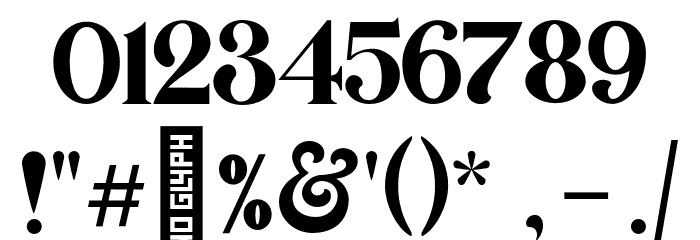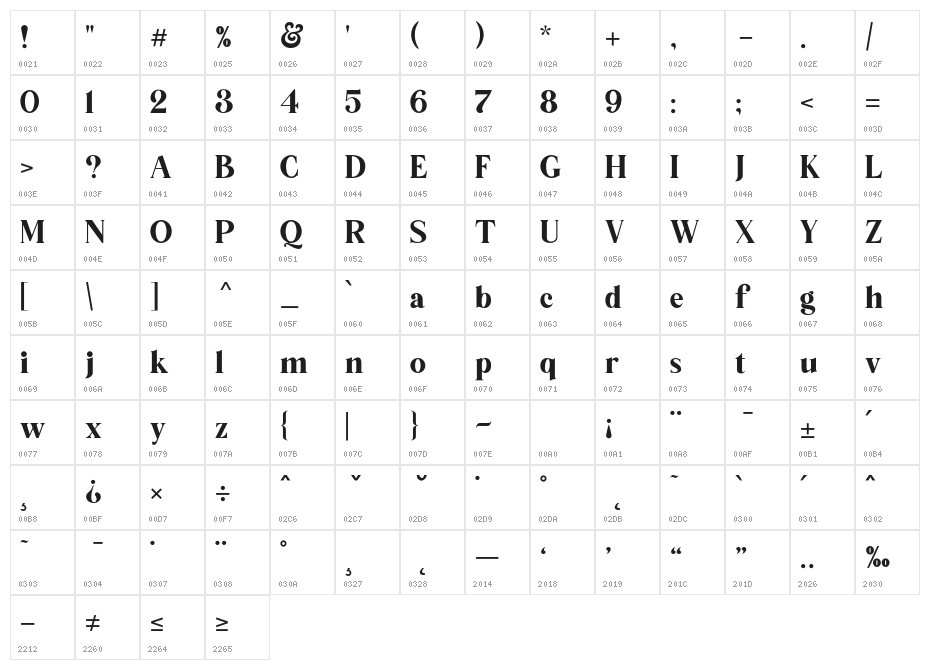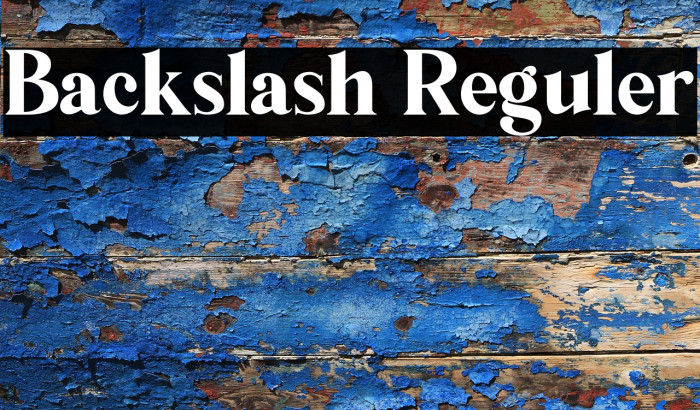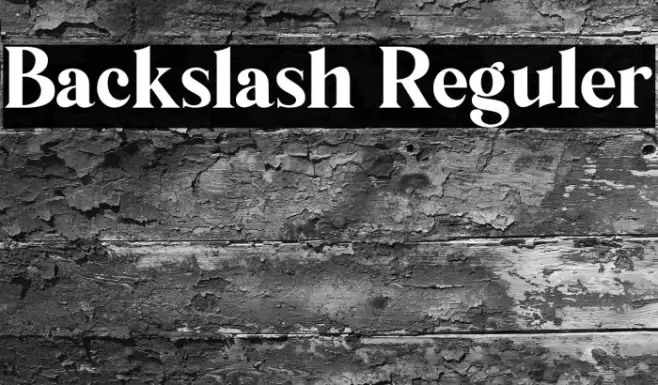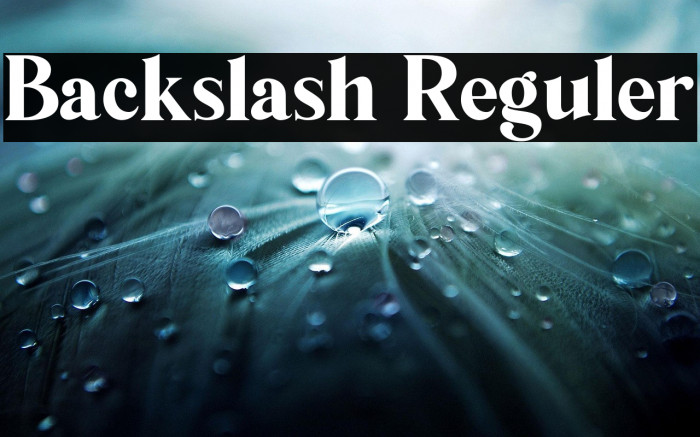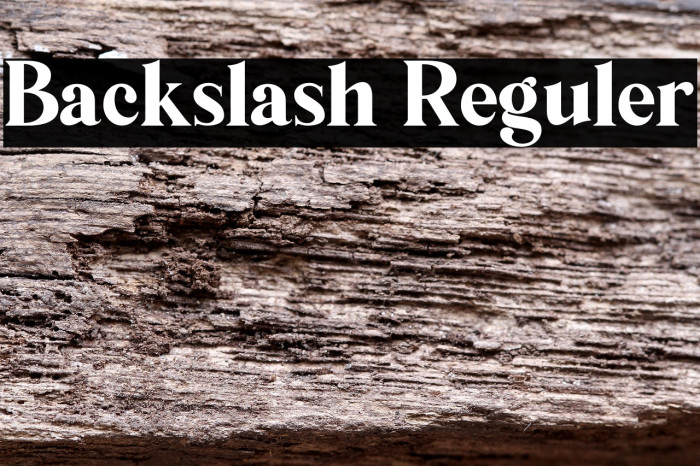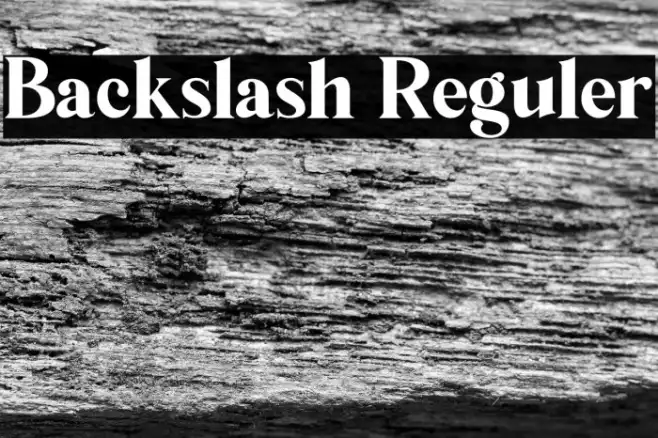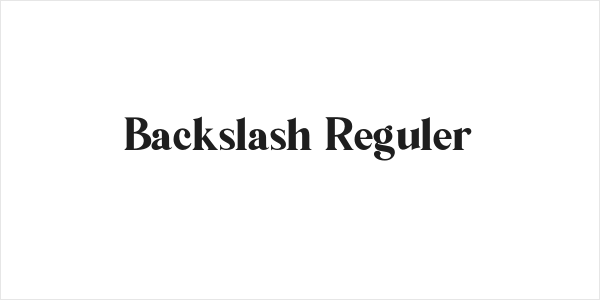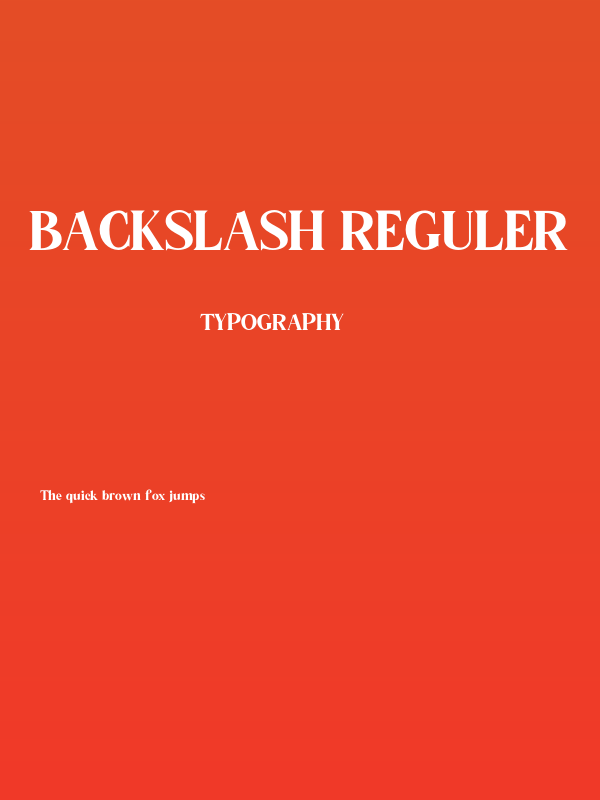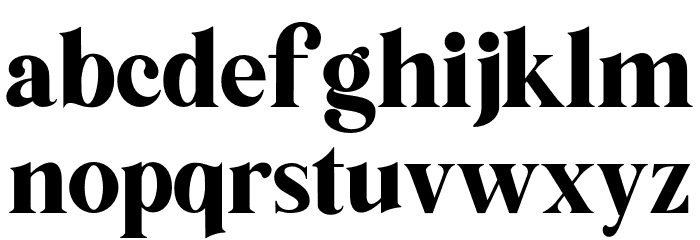
Backslash Reguler Font
Backslash Reguler Description
This font features a bold and classic serif design, characterized by its strong contrast between thick and thin strokes. The serifs are pronounced and sharp, giving it a traditional and authoritative appearance. The uppercase letters are tall and commanding, while the lowercase letters maintain a consistent style with slightly rounded edges. The numerals are clear and well-defined, ensuring readability. Special characters are elegantly integrated, maintaining the overall aesthetic. This font is versatile, suitable for both formal and creative applications.
| Use Case | Headlines, Logos, Editorial design |
| Proposed Projects | Ideal for editorial design, book covers, branding, and formal invitations. |